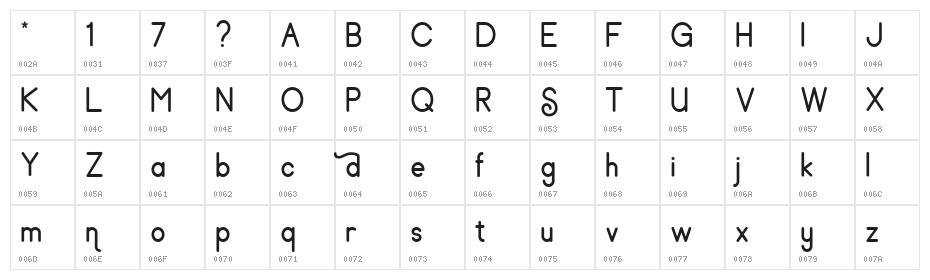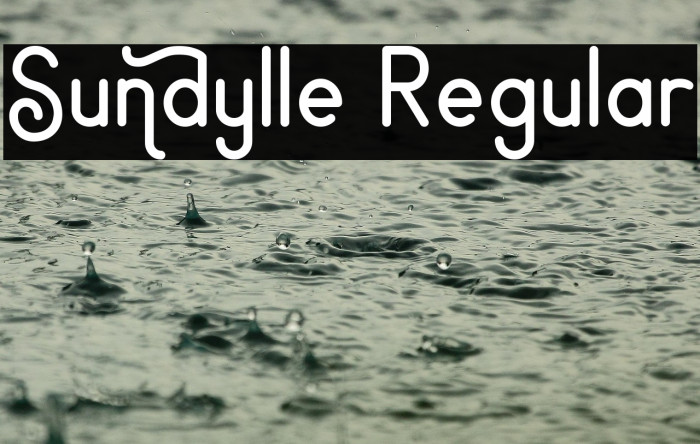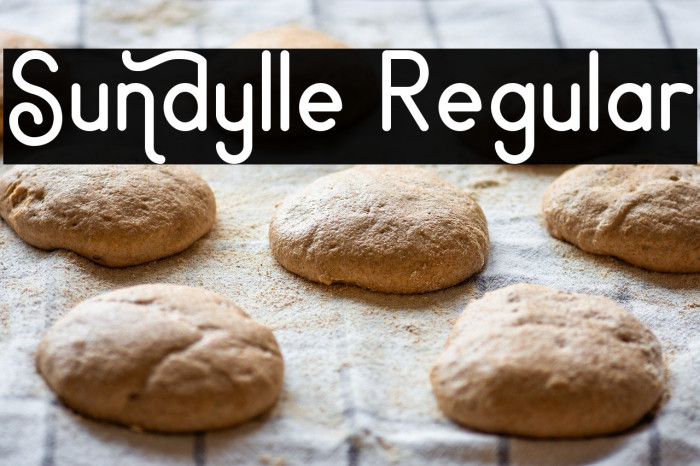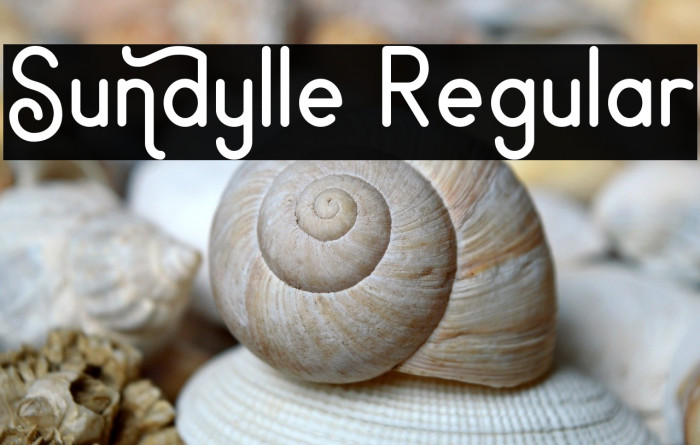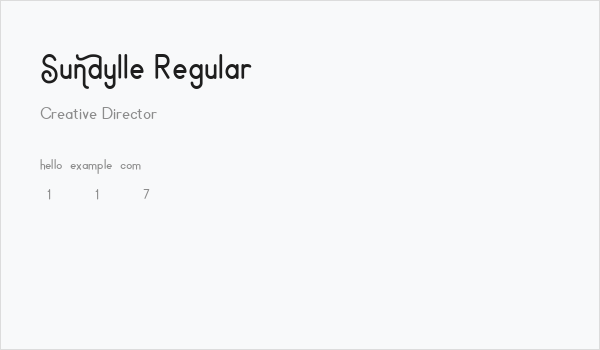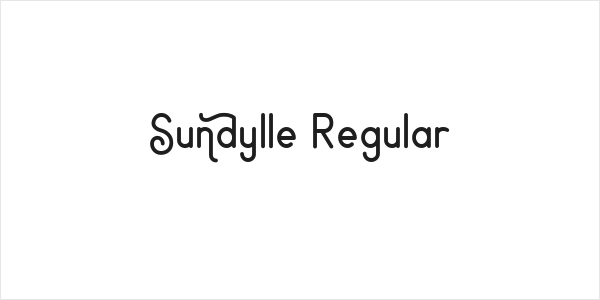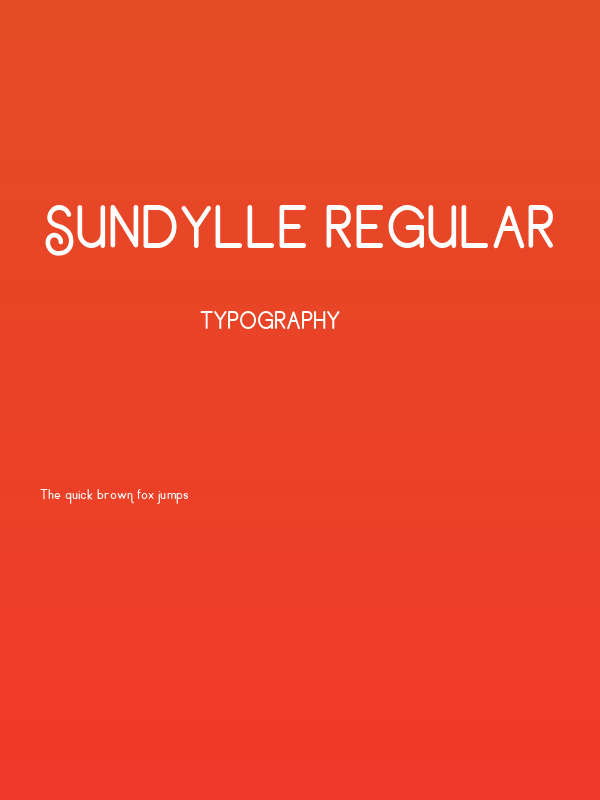
Sundylle Regular Font
| Anwendungsfall | Headlines, Logos, Web design |
| Vorgeschlagene Projekte | Ideal for children's books, playful branding, modern web design, and casual invitations. |